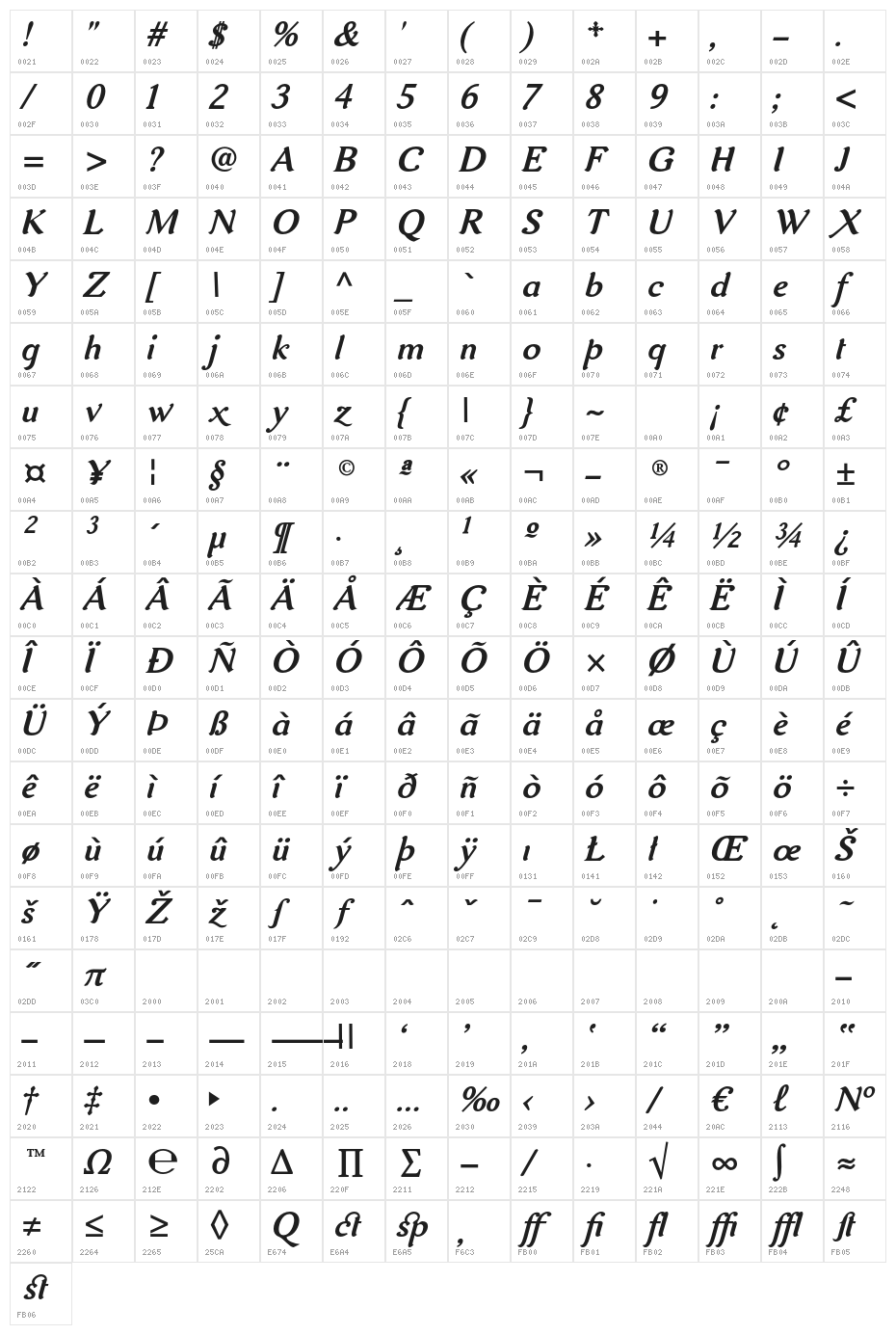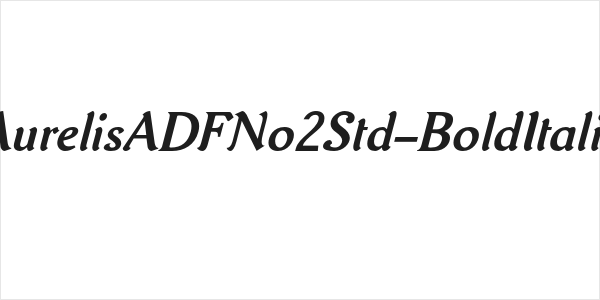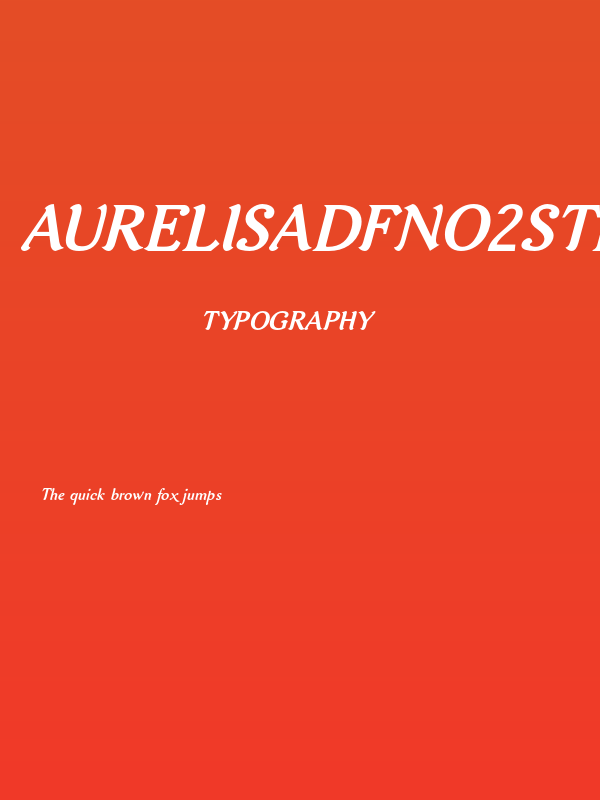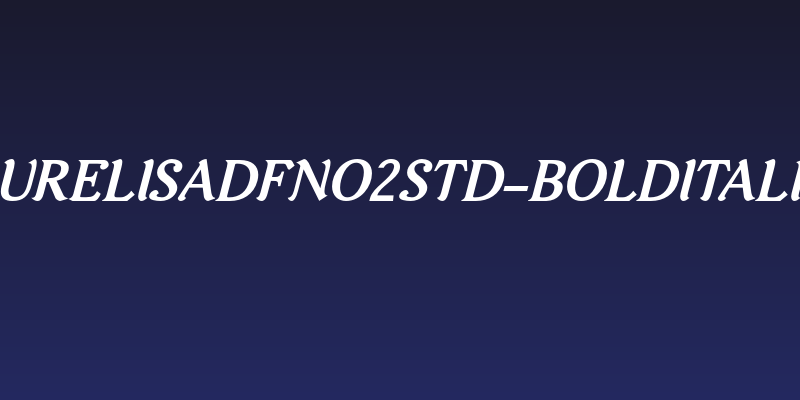
AurelisADFNo2Std-BoldItalic Font
AurelisADFNo2Std-BoldItalic Description
This font exhibits a classic serif style with a bold and italicized appearance, giving it a strong yet elegant presence. The characters are well-defined with a slight slant, enhancing its dynamic and sophisticated look. The serifs are pronounced, contributing to a traditional feel, while the boldness adds a modern touch. The font maintains a consistent stroke width, providing a balanced and harmonious appearance. It is versatile, suitable for both formal and creative projects, offering readability and style.
| Use Case | Headlines, Logos, Editorial design |
| Proposed Projects | Ideal for book covers, formal invitations, branding, and editorial design. |